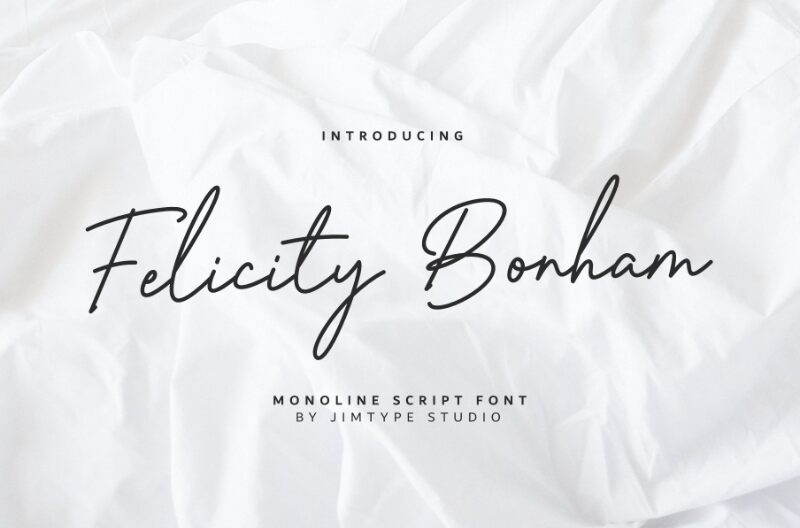
Felicity Bonham, crafted by Jimtype Studio, is a captivating handwritten signature font that exudes elegance and sophistication. Its light, organic strokes create a sense of effortless grace, seamlessly blending the formality of a signature with the warmth of a personal touch. The flowing, dynamic lines evoke a sense of movement and spontaneity, while the subtle variations in thickness add depth and character to each glyph. This font's versatility shines through its ability to convey both a sense of intimacy and a touch of formality, making it a versatile choice for a wide range of design applications.
Felicity Bonham's unique aesthetic lends itself beautifully to branding, packaging, and editorial design, where its signature-inspired aesthetic can add a personalized, artisanal flair. Equally at home in wedding invitations, greeting cards, and luxury product labeling, this font's refined and elegant quality can elevate any project, imbuing it with a sense of refined sophistication and timeless appeal.